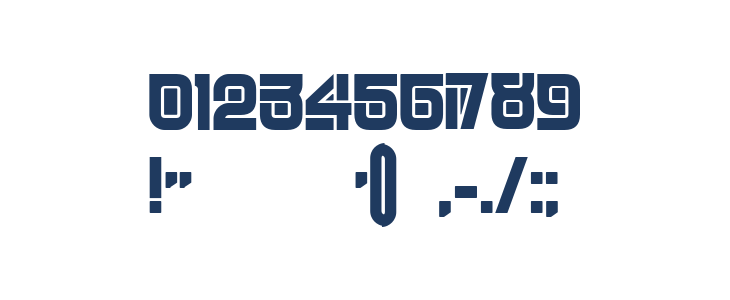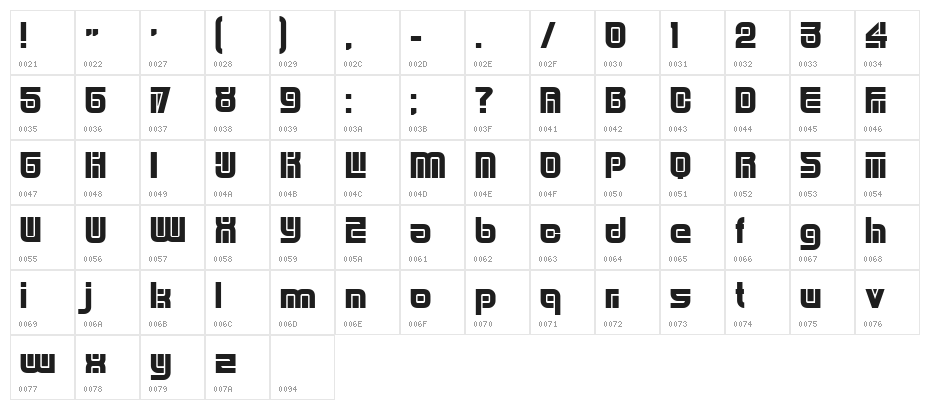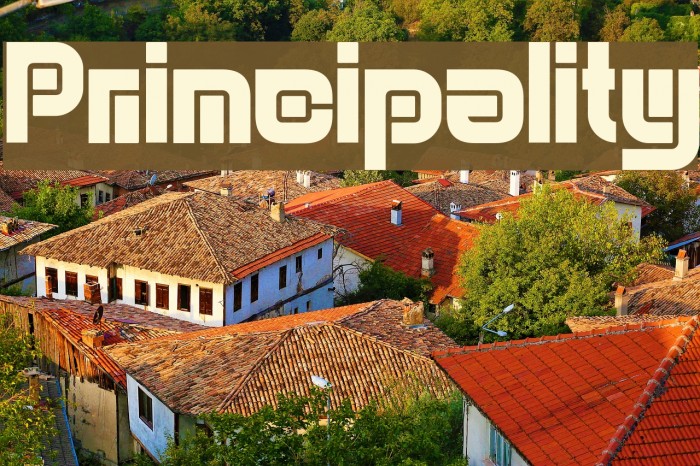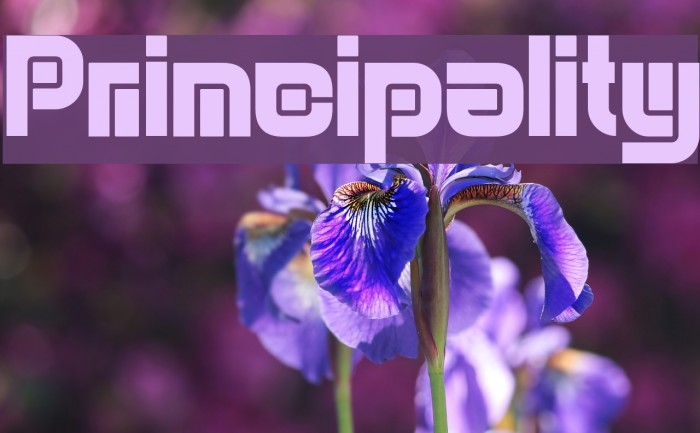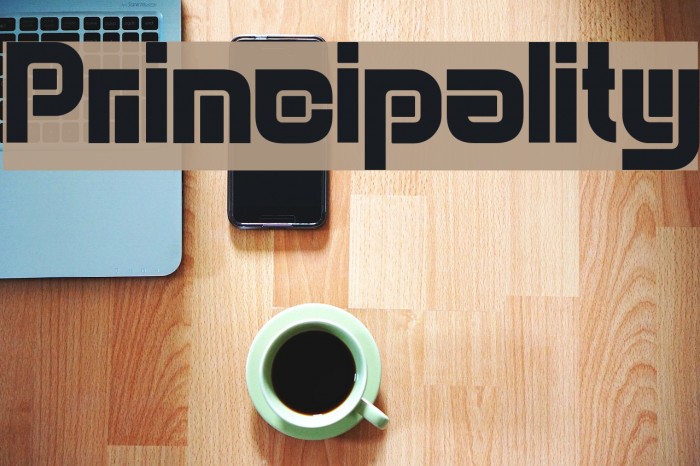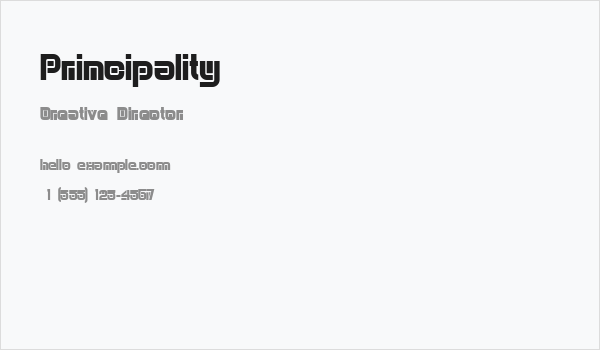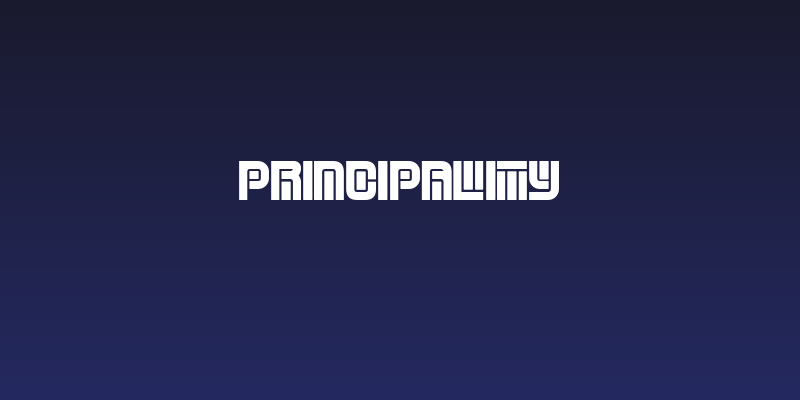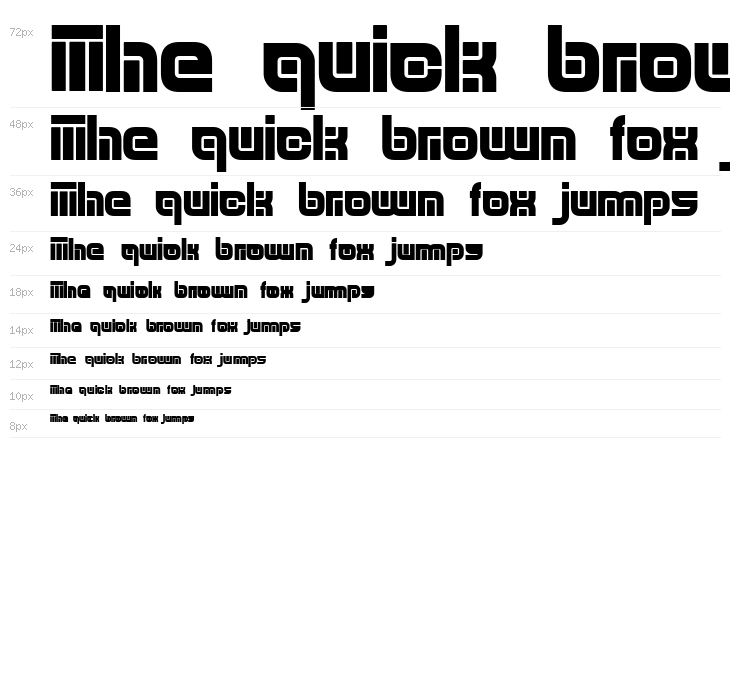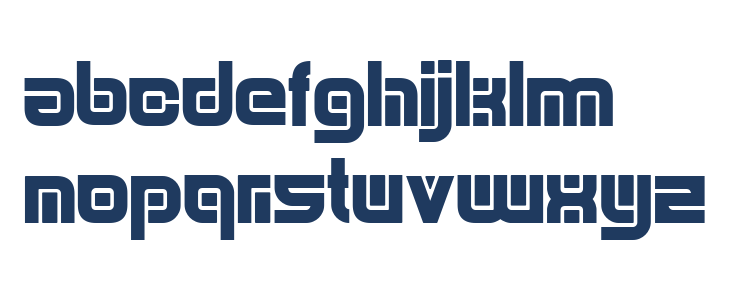
Principality Font
✎ Futuristic
Principality Description
This font features a bold, geometric design with a futuristic flair. The characters are constructed with thick, uniform strokes that create a strong visual impact. The uppercase letters are particularly striking, with a blocky appearance that emphasizes their angular shapes. The lowercase letters maintain the same geometric style, offering a cohesive look across the typeface. Numbers and special characters are designed to match the boldness and angularity of the alphabet, ensuring consistency throughout. This font's unique style makes it ideal for projects that require a modern and assertive aesthetic.
| Proposed Projects | Ideal for branding, posters, video game graphics, and sci-fi themed designs. |